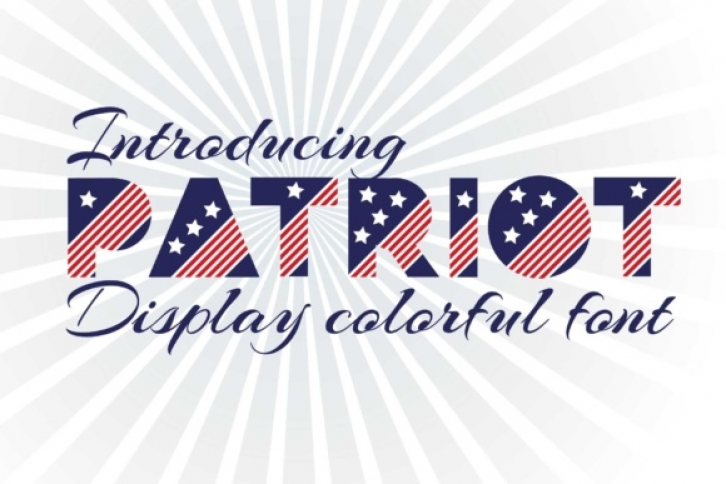
Get ready for the 4th of July! This font, Patriot, is a gorgeous way to display your American pride! This font comes as a color font, a new technology that makes designing so much easier; get more information about color fonts here.